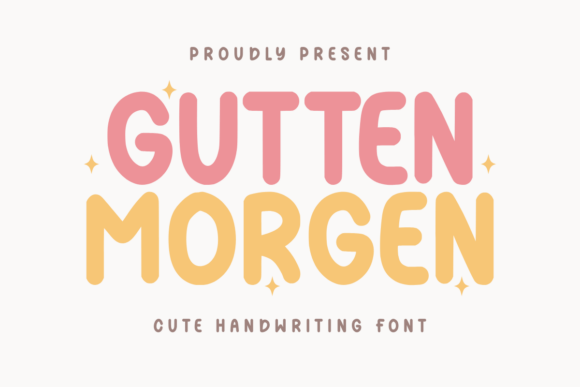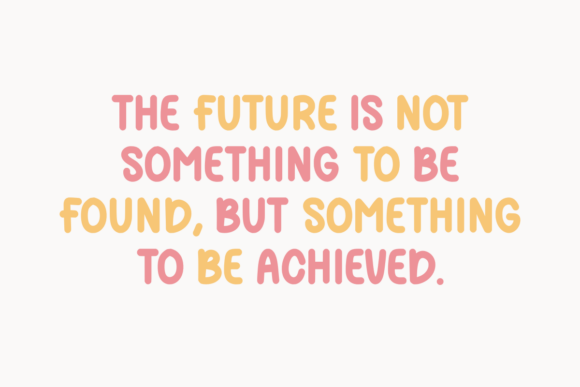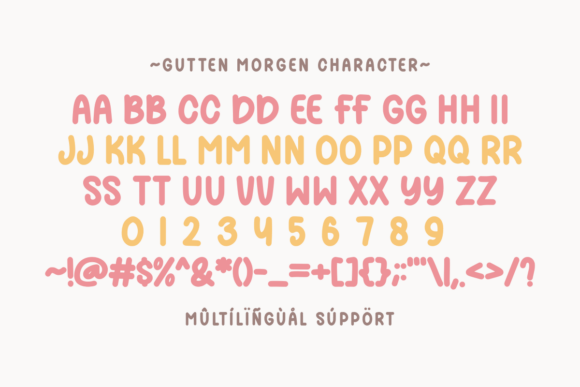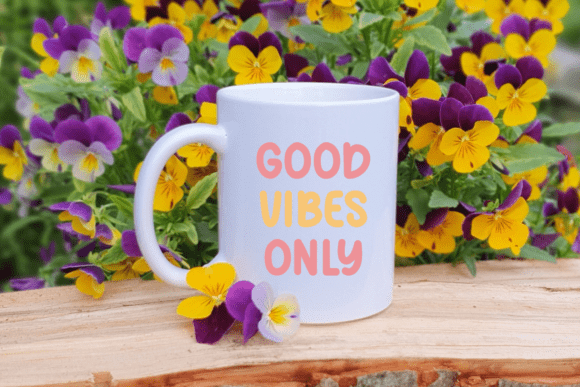
Gutten Morgen Font: A Cute Handwritten Font for Playful Designs
About the Gutten Morgen Font
Let us introduce you to Gutten Morgen Font, where timeless design meets modern craftsmanship. Gutten Morgen is a charming handwriting font with a clean yet whimsical vibe. Featuring smooth curves and a hand-drawn feel, this font is perfect for romantic designs, wedding invitations, heartfelt branding, and elegant social media graphics. Its versatile style pairs a modern aesthetic with a touch of playful warmth, making it ideal for creative and love-inspired projects.
Gutten Morgen’s playful warmth makes it ideal for projects requiring a friendly, approachable aesthetic. It excels in headlines, short-form text on branding materials, and invitations. Its charm shines on packaging for artisanal goods or products targeting a younger, creative demographic. Avoid using it for extensive body copy or UI elements; the hand-drawn nature can hinder readability in large blocks of text.
Pairing it with a clean sans-serif like Montserrat or a geometric sans-serif like Futura would create a balanced contrast, highlighting Gutten Morgen’s whimsical charm while maintaining readability. For a more luxurious feel, consider pairing it with a classic serif font such as Garamond or a subtly elegant script font.
The overall personality is best described as friendly and approachable, conveying a sense of handcrafted quality and gentle elegance. It’s particularly well-suited to brands emphasizing warmth, creativity, and a personal touch.
Gutten Morgen Font Usage Examples
Gutten Morgen Font Example